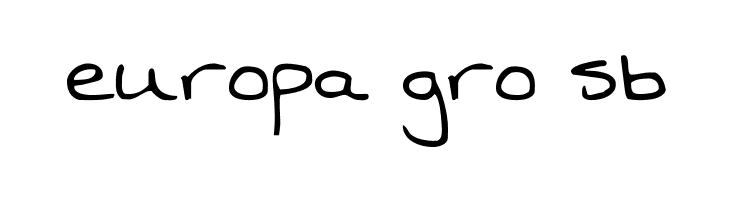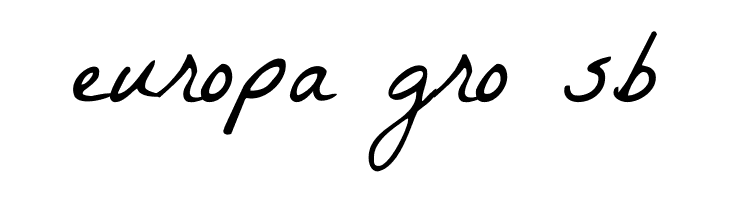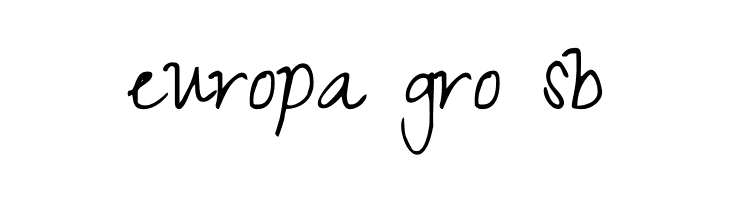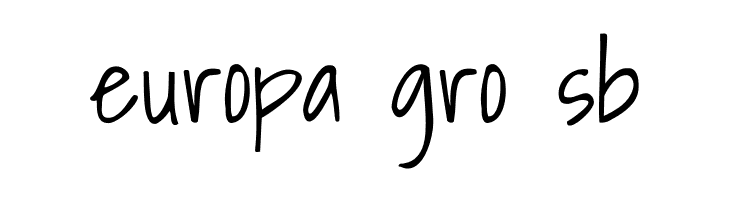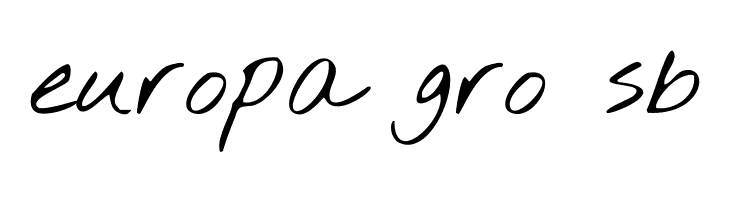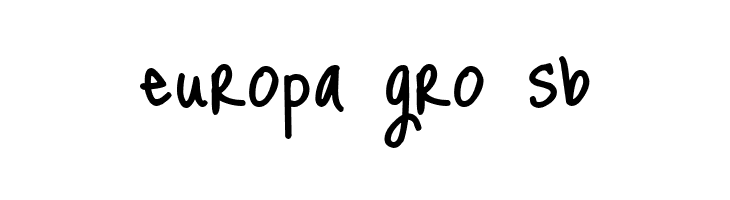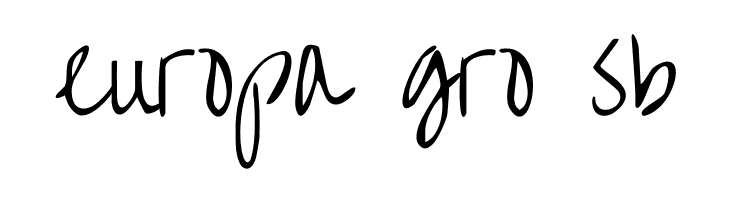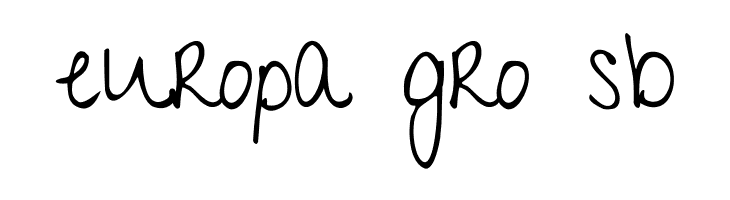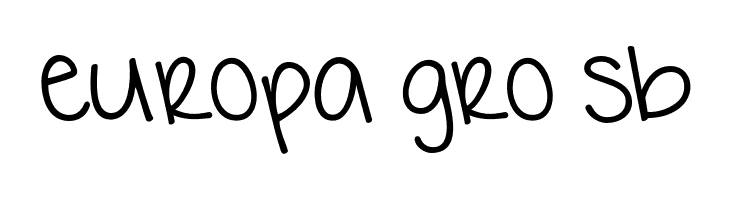
A playful handwritten font with a casual and friendly style.
A fluid, cursive handwritten font with elegant, flowing lines.
A flowing, handwritten font with a casual and artistic style.
A casual, handwritten font with smooth, flowing strokes and a friendly appearance.
A casual, fluid handwritten font with smooth, flowing lines.
A casual, playful handwritten font with uneven strokes and a dynamic flow.
A playful, casual handwritten font with fluid, irregular strokes.
A playful, casual handwritten font with fluid and natural strokes.
A playful, handwritten-style font with smooth, rounded edges.